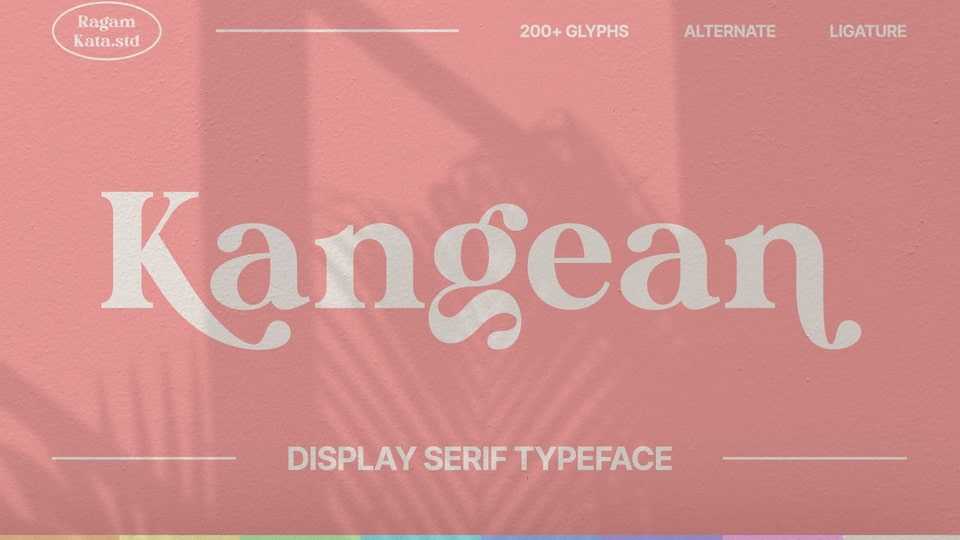
Download Kangean font, a cutting-edge typeface designed for the modern era. This retro serif display font brings a touch of nostalgia with a contemporary twist.